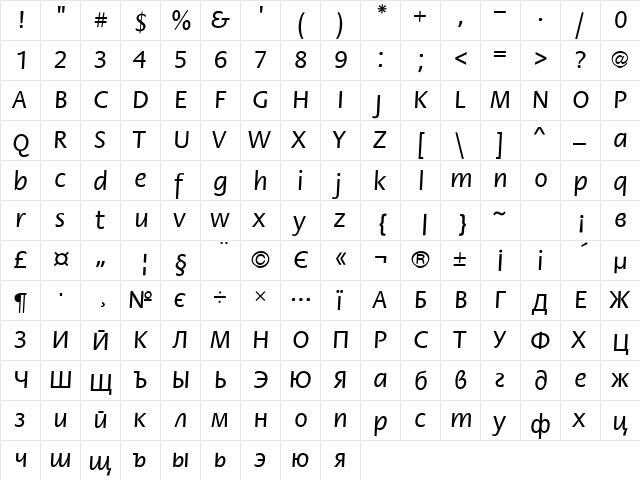
Flori Normal Font Preview
Flori Normal
Flori Normal Font Details
Design Context for Flori Typeface
Flori is a composed and adaptable typeface that performs quietly and consistently across a wide range of design contexts.